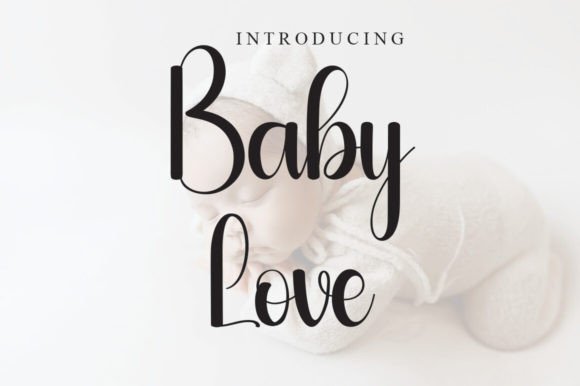
Wrap Your Design in Love with the Baby Love Font
You know that feeling when you’re working on a design project and you just want to add that special something to make it truly special? Maybe it’s a baby shower invitation, a wedding program, or a nursery rhyme book – whatever it is, you want to infuse it with love and warmth. That’s where the Baby Love Font comes in.
This beautiful handwritten font is a masterful blend of sweet charm and cursive elegance, perfect for adding a touch of romance and joy to your designs. With its delightful usability and beguiling curves, the Baby Love Font is a valuable asset for designers looking to elevate their work and make it truly unforgettable. Whether you’re a seasoned pro or a creative newbie, this font is sure to become a go-to favorite.
- Unique Characteristics: Whimsical, cursive script with a playful, childlike feel; ideal for baby-related designs, nursery decor, and children’s products
Review of Baby Love Font
Overall, I think the Baby Love Font is a charming addition to any design project that needs a playful touch. Here are some aspects that shine ✨:
- The font’s curves and rounded edges give it a soft, endearing quality that’s perfect for designs targeting young parents or children.
- The various weights and styles provided allow for a range of creative expressions, from casual to formal.
- The font’s whimsical feel makes it an excellent choice for packaging design, stationery, and other applications where a touch of personality is needed.
However, there are some limitations to consider ⚠️:
- The font’s readability can suffer at smaller sizes or in certain contexts, which may impact its usability in some designs.
- The font’s playful nature may not be suitable for all audiences or applications, potentially limiting its versatility.
- The font’s design is quite distinctive, which may lead to overuse or clichés if not used thoughtfully.
Overall, the Baby Love Font is a delightful choice for designers seeking a lighthearted, approachable feel. While it may not be suitable for all projects, it’s an excellent addition to any designer’s toolkit.
Tips for Getting the Most Out of Baby Love Font
To get the most out of the Baby Love Font, try the following tips:
- Use it in conjunction with pastel colors for a soft, baby-inspired look.
- Pair it with bold, playful graphics for a fun and whimsical feel.
The Baby Love Font is perfect for:
- Baby shower invitations and decorations.
- Children’s party invitations and graphics. Alternatives to Baby Love Font
- Use the Baby Love Font for the main text, such as the invitation’s title and the guest of honor’s name.
- Combine the font with watercolor illustrations or pastel-colored backgrounds to create a soft and feminine look.
- Pair the font with bold and playful graphics, like baby blocks or baby bottles, to add a touch of whimsy.
- Use a contrasting font, like a clean sans-serif, for the RSVP information or details.
- Use the Baby Love Font to create a sweet message or the baby’s name in a decorative banner.
- Combine the font with colorful embroidery floss or appliques to create a fun and playful design.
- Pair the font with a simple, white background to let the text stand out.
- Use a contrasting font or a decorative border to separate the design from the rest of the blanket.
- Use the Baby Love Font for the main text, such as the business name or a promotional message.
- Combine the font with bright and bold colors to grab attention on social media feeds. Baby Love Font FAQs
Great Vibes Font is a modern, elegant script font that is perfect for creating a romantic and whimsical atmosphere. It is ideal for wedding invitations, baby shower invitations, and other special occasions where a touch of elegance is required.
Great Vibes Font is more elegant and refined compared to Baby Love Font, which is more playful and casual. It is also more versatile and can be used in a variety of contexts, from formal events to casual gatherings.